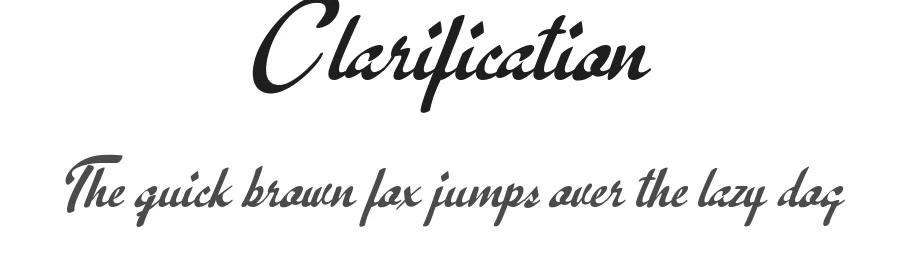
About Douglast Font
| Designer | Kong Font |
Douglast ships with 4 OpenType features you can switch on in apps that support them (Illustrator, InDesign, Affinity, Figma, CSS font-feature-settings).
- Stylistic sets (6)
Douglast Font is a script font that shines as a display or heading face. Pair it with a clean sans-serif or serif font for body text β the contrast creates a clear hierarchy while the two styles stay balanced and easy to read.